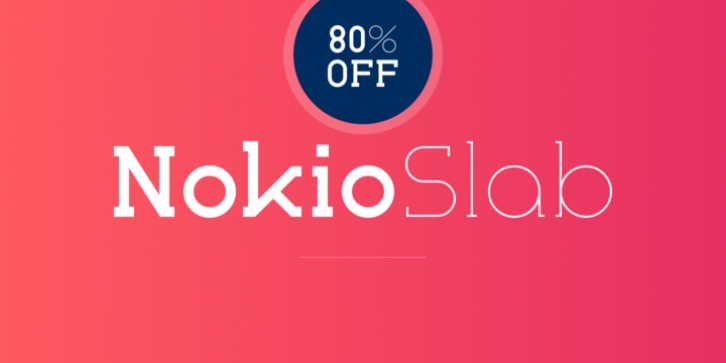
Nokio Slab is the big brother to the popular Nokio & Nokio Sans fonts and provides even more uses for the Nokio range.
Nokio Slab is made up of 5 weights + italics and also features an alternate font that uses more traditional character structures to offset the playful original.
Nokio Slab is built for multiple uses, from digital applications such as Apps and Websites to logotypes and print applications.